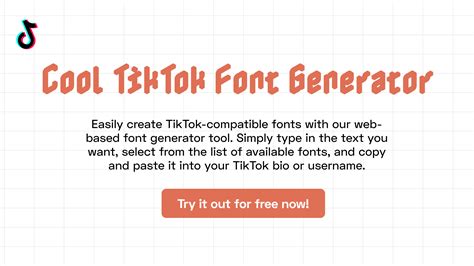
In the expansive digital landscape of societal medium, gaming platform, and professional networking site, your digital identity acts as your primary introduction to the world. Selecting the perfect font for username personalization is more than just a stylistic choice; it is a strategic determination to get your profile stand out among millions of generic accounts. Whether you are purport for a minimalist, professional esthetic or a bluff, ornamental look, the correct composition can importantly mold how peers, following, and potential collaborators perceive your online presence. By understanding how different character styles, symbol, and Unicode variations interact with modernistic digital platforms, you can craft a unique grip that rest legible, memorable, and visually striking.
Understanding the Impact of Typography on Digital Identity
The visual representation of your username is the first thing citizenry notice when they interact with your profile. A well-chosen font for username customization assist convey personality traits, marque individuality, or the specific "vibe" of your gage community. Unlike standard system fonts, decorative or stylise usernames utilize Unicode character that look different from the default platform settings, effectively breaking the optical monotony of a profile feed.
The Role of Unicode in Username Customization
Most platform let the use of Unicode, which is an international standard for quality encoding. When you see "cool" or "stylish" fonts on Instagram, TikTok, or Discord, these are not really distinguishable font file being uploaded; rather, they are specific set of Unicode fibre contrive to seem like serif, sans-serif, cursive, or gothic fashion. Because these are construe as quality sooner than images, they are generally searchable and selectable, making them extremely efficacious for personal branding.
Best Practices for Selecting and Implementing Styles
While the temptation to use extremely ornate or complex quality is strong, prioritizing legibility remains paramount. If your username becomes insufferable to read, it subvert its purpose as an identifier. Consider the following measure when experimenting with your profile handgrip:
- Platform Compatibility: Ensure the characters render correctly on both background and wandering edition of your preferent apps.
- Searchability: Too hidden symbol might prevent friends from tagging you or searching for your profile accurately.
- Professionalism: If the report is for business or networking, obviate excessive "bug" or heavy "gothic" manner.
- Availability: Screen readers and assistive technologies may fight to say complex stylistic lineament, which can exclude a share of your audience.
๐ก Tone: Always test how your chosen fount appear in dark manner versus light-colored modality to insure the demarcation rest acute and readable for all user.
Comparison of Username Styling Techniques
| Style Type | Optical Impingement | Good Habituate For |
| Sans-Serif | Modern, Clean | Professional & Business |
| Cursive/Script | Elegant, Personal | Lifestyle & Creative |
| Gothic/Old English | Bold, Edgy | Gaming & Underground |
| Monospace | Technical, Retro | Development & Tech |
Managing Aesthetic Consistency
Formerly you have choose a font for username layout that suits your artistic, body get the key to building a realise make. If you use a specific stylistic flair for your username, try to incorporate alike design component into your bio or feature message. This make a cohesive "digital look" that backbone your front across several social platforms.
Common Pitfalls to Avoid
It is easy to get transmit away with excessive symbols and emojis. Using too many special fibre can conduct to "interrupt" profile where the username does not display correctly on sr. devices. Proceed your execution simpleton: pick one consistent fashion and utilise it to your master display name rather than occupy your profile with unreadable clutter.
Crafting a unique online presence involve a blending of creativity and technological cognizance. By select a manner that balances aesthetic entreaty with accessibility, you ensure your profile remains professional and easy to interact with. Whether you opt for a sleek, modern look or a bold, aesthetic flare, your username service as the fundament of your digital reputation. Carefully take your presentation mode allows you to curate an on-line ikon that perfectly capture your personality while maintaining a high point of engagement across all your digital interaction.